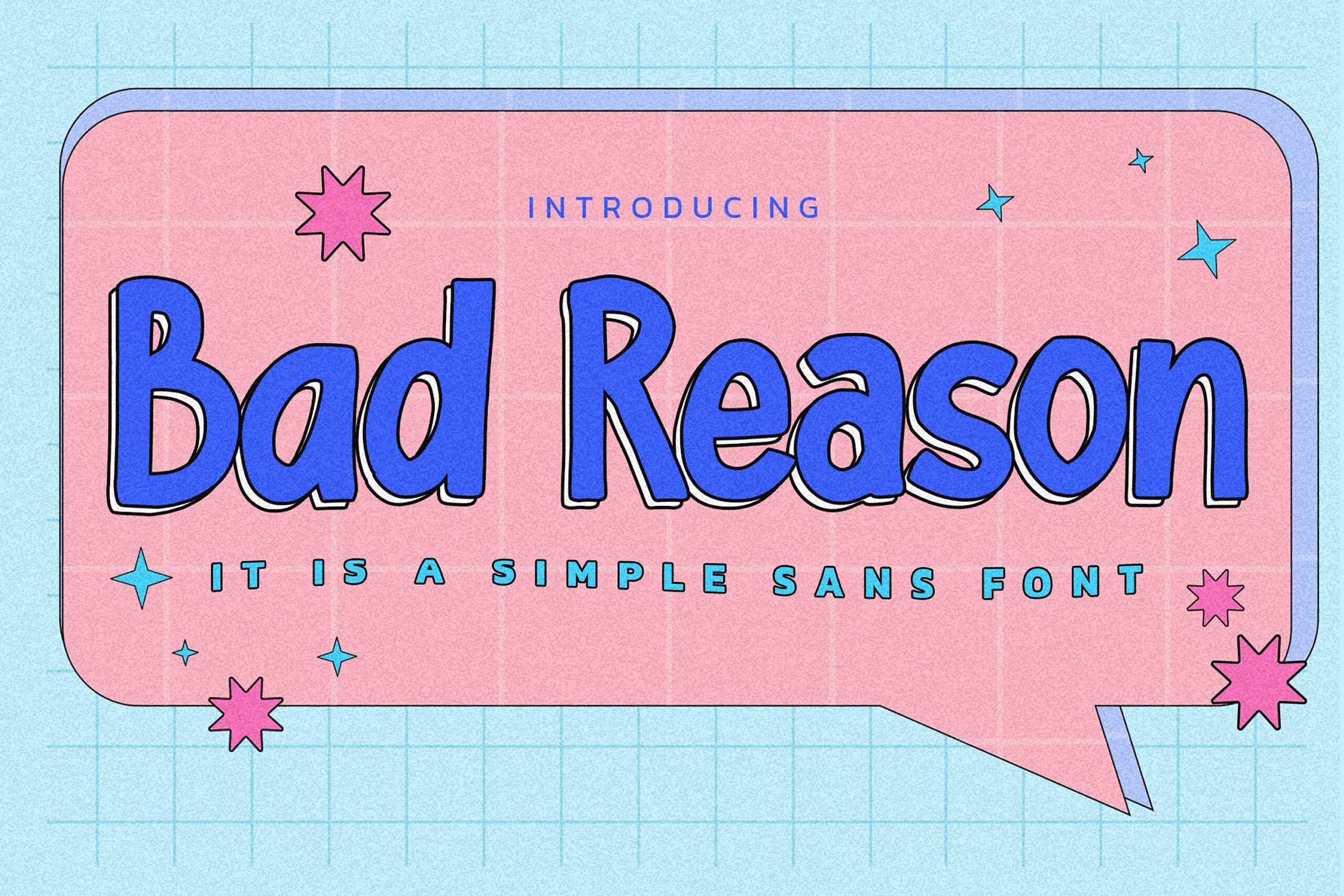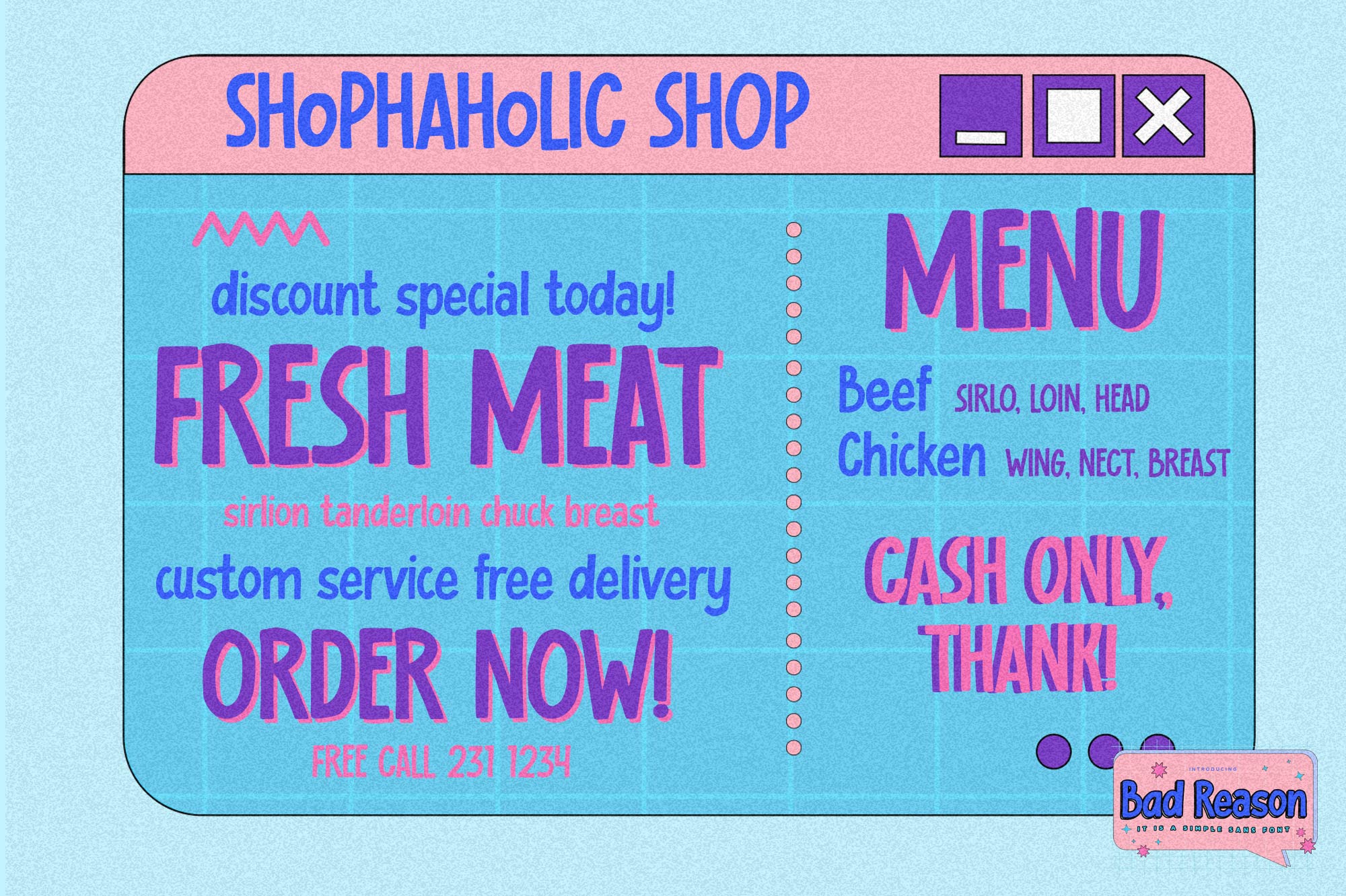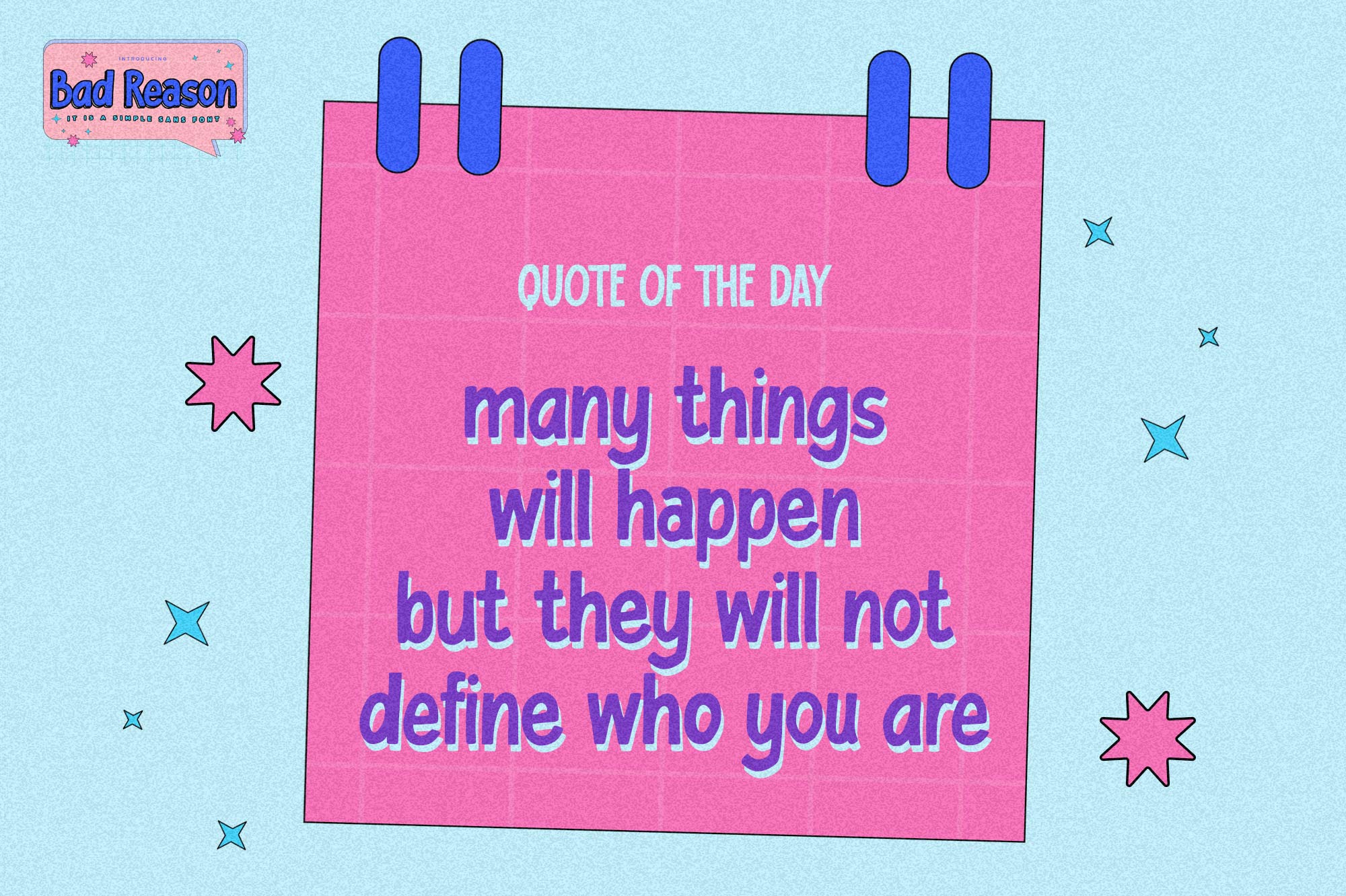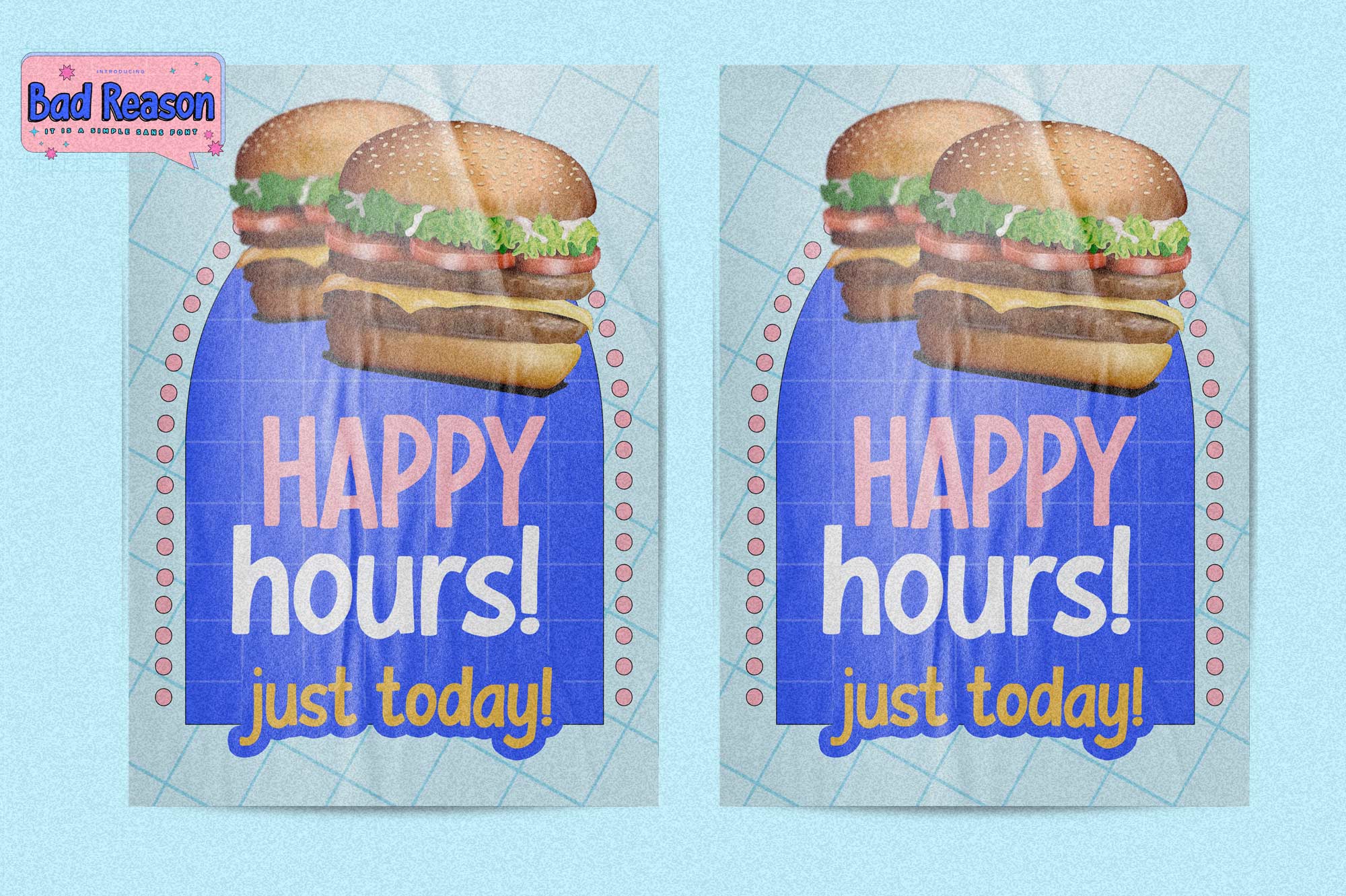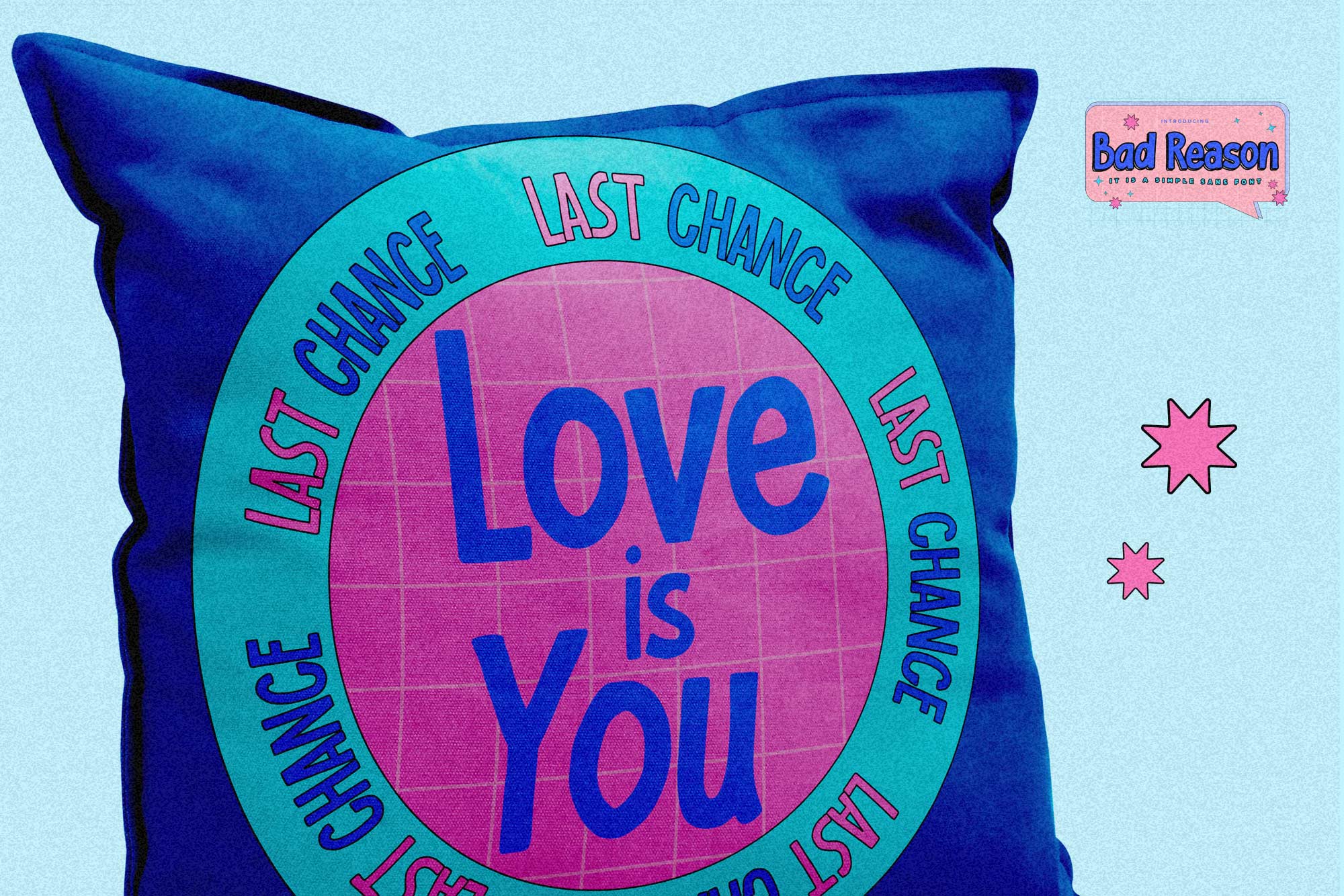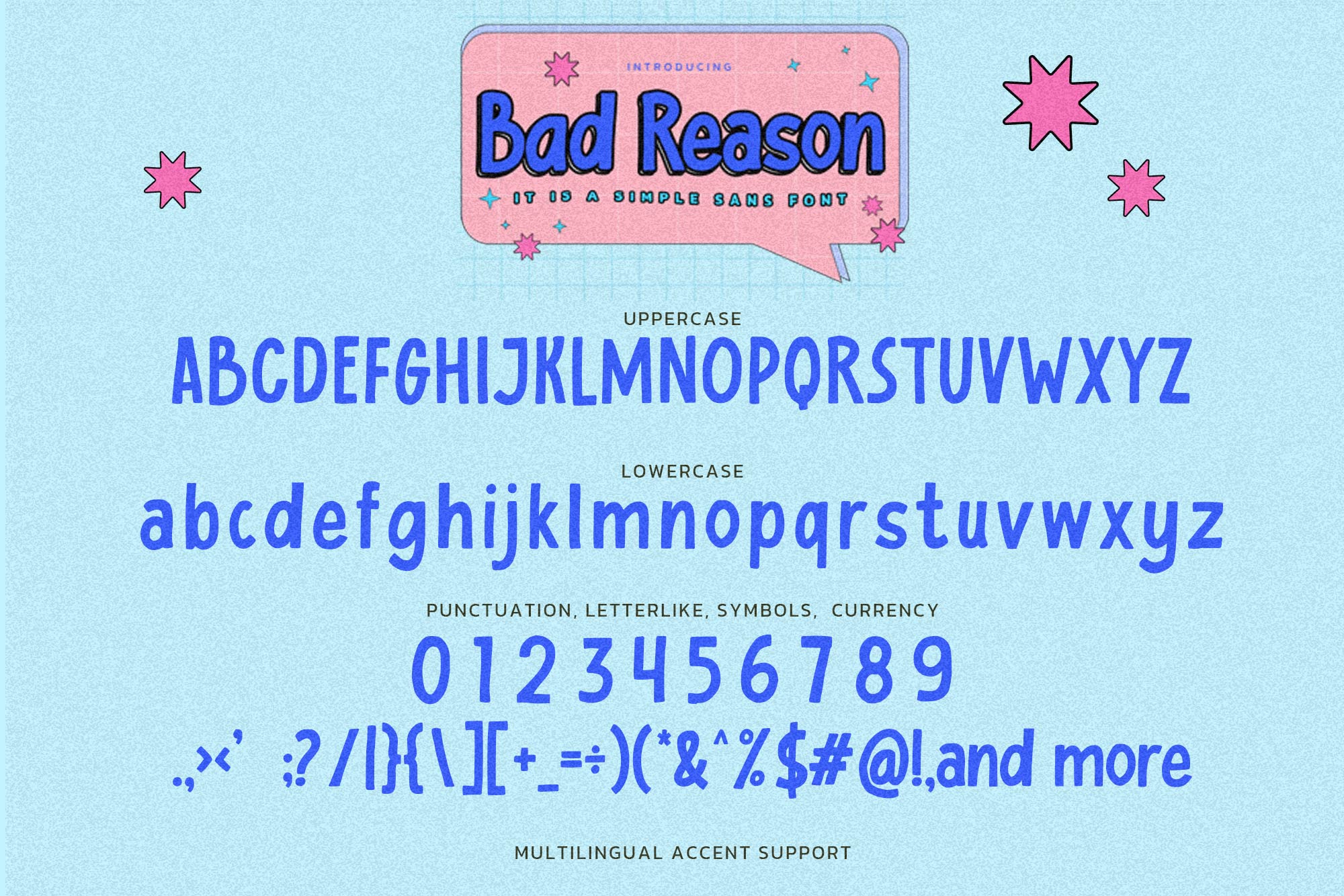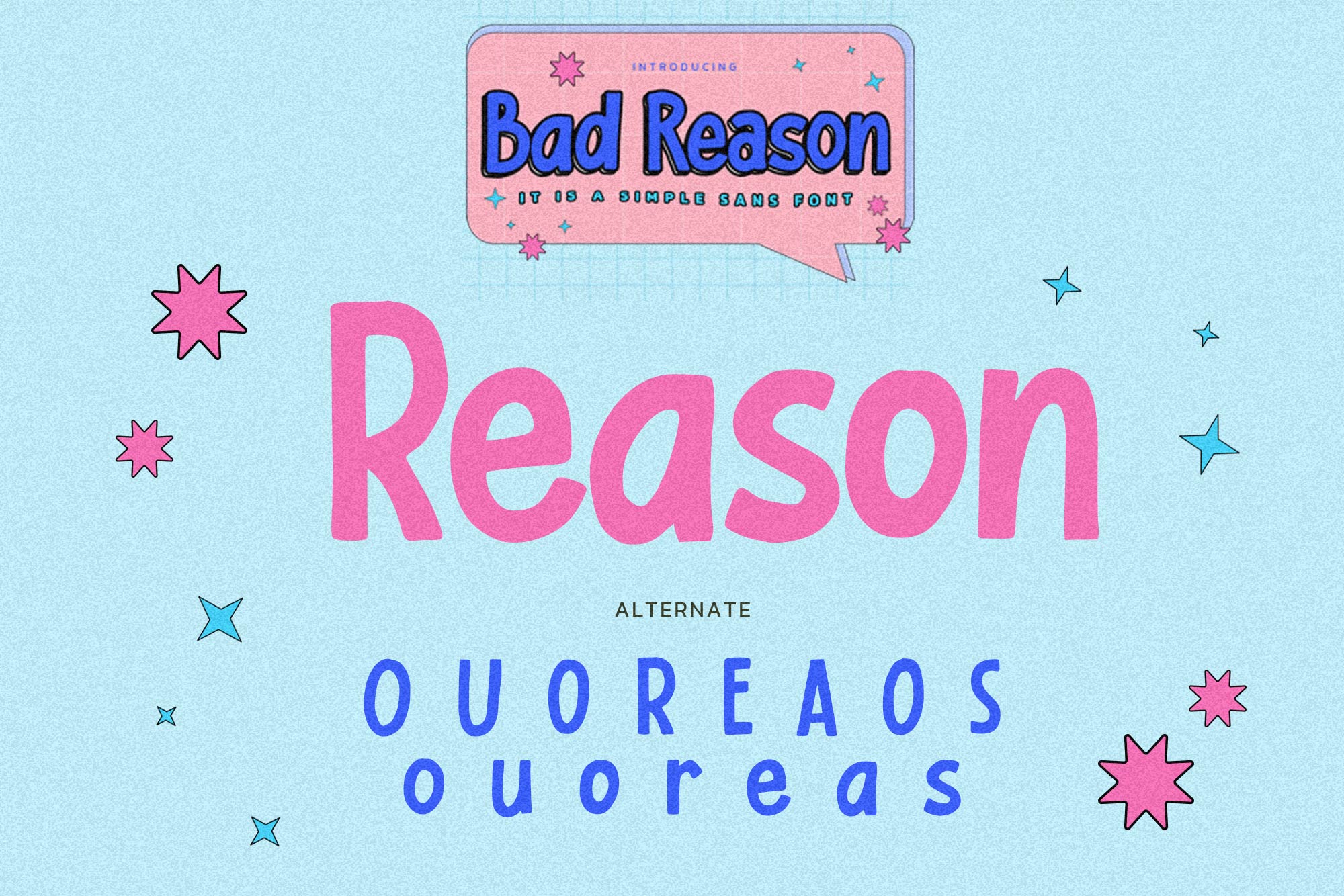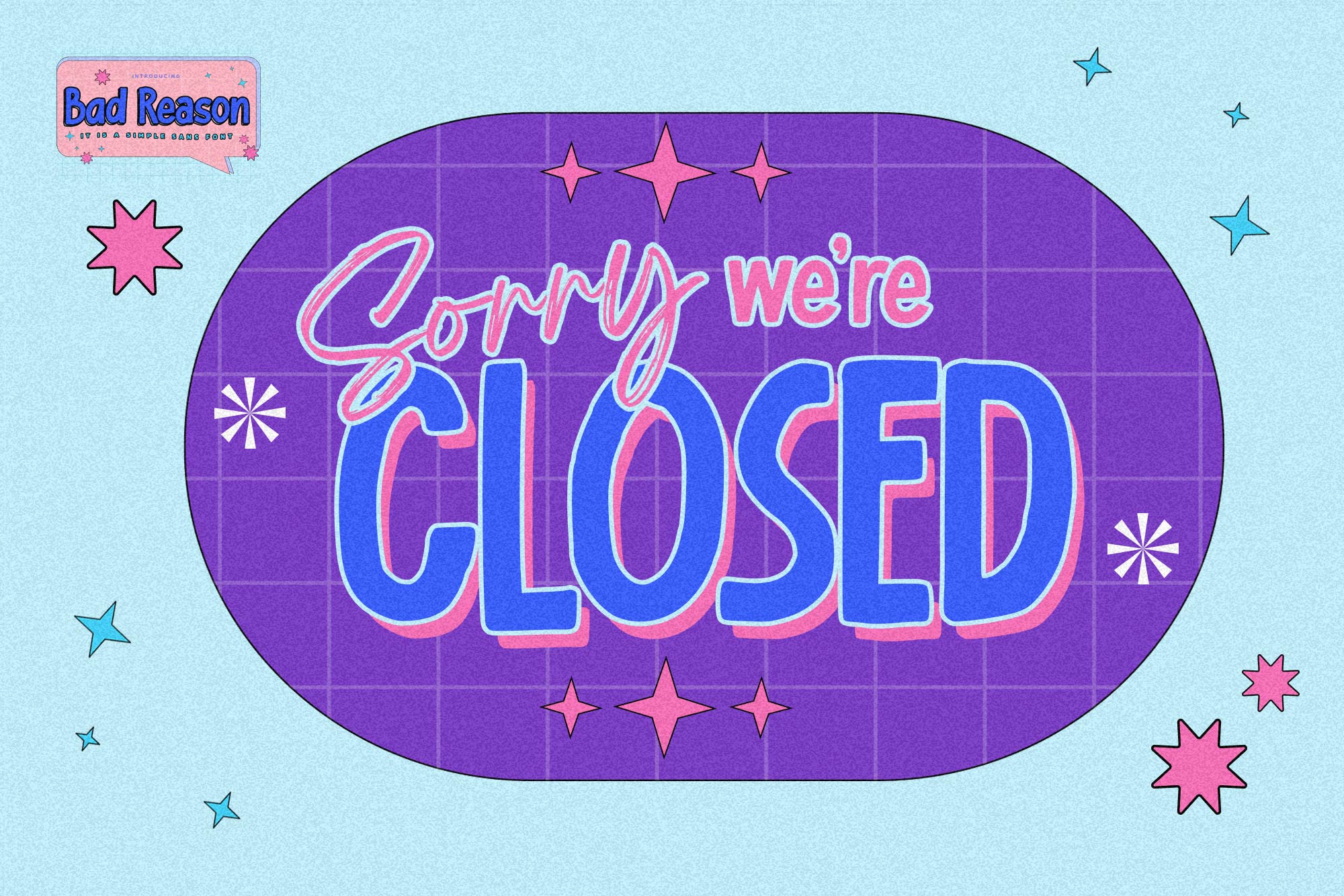
Bad Reason – It Is Simple Sans Font, modern style and dramatic movement that is written casually and quickly.
The best for labels, poster, project designs look modern, authentic and fun. It’s perfect for labels, quotes, posters, DIY projects, branding, packaging, greeting cards, websites, photography overlays, signs, scrapbooking, tags and so much more! That is why Bad Reason has a textured, and unique characteristic more natural look. You can activate Alternate glyphs OpenType panel.
- Alternate glyphs